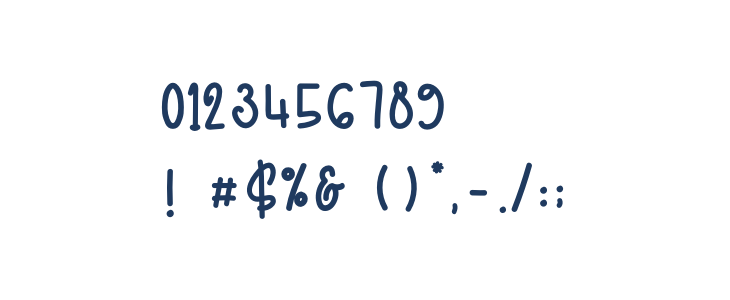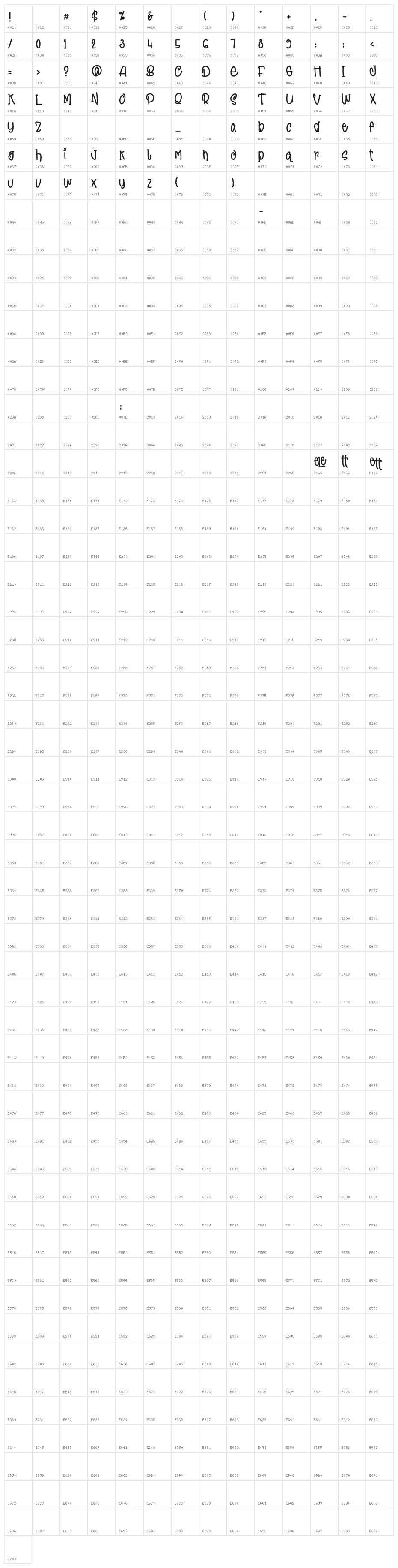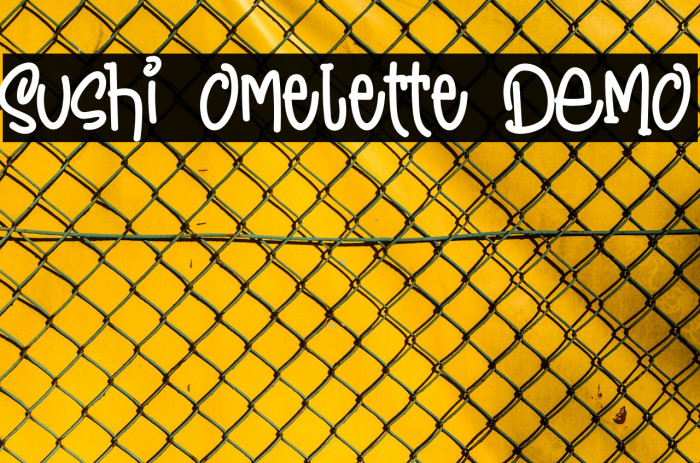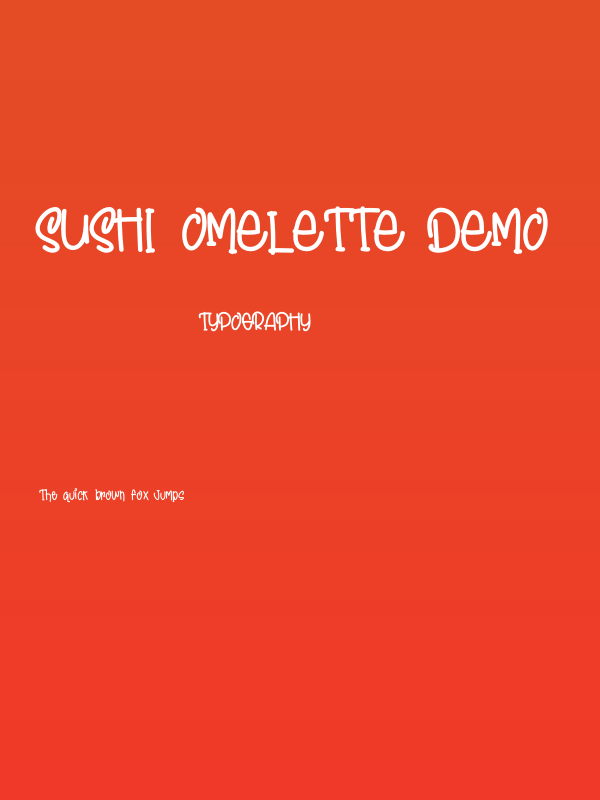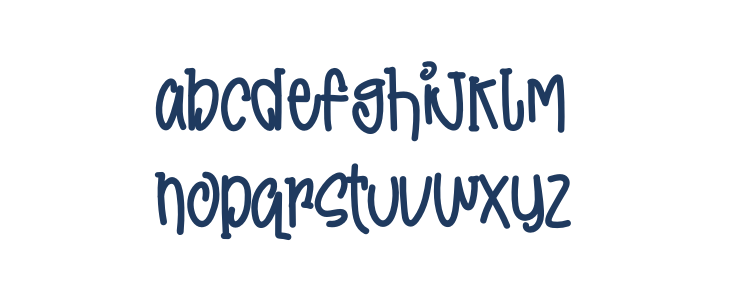
Sushi Omelette DEMO Font
Sushi Omelette DEMO Description
This playful and whimsical font features a handwritten style with a casual and friendly appearance. The characters are bold and rounded, with a slight slant that adds to its informal charm. The uppercase and lowercase letters maintain a consistent style, with some letters having unique flourishes that enhance its quirky personality. The numbers and special characters are equally expressive, making it suitable for creative and fun projects. The overall design is approachable and lively, perfect for conveying a sense of joy and creativity.
| Proposed Projects | Ideal for children's books, playful branding, greeting cards, and creative social media graphics. |